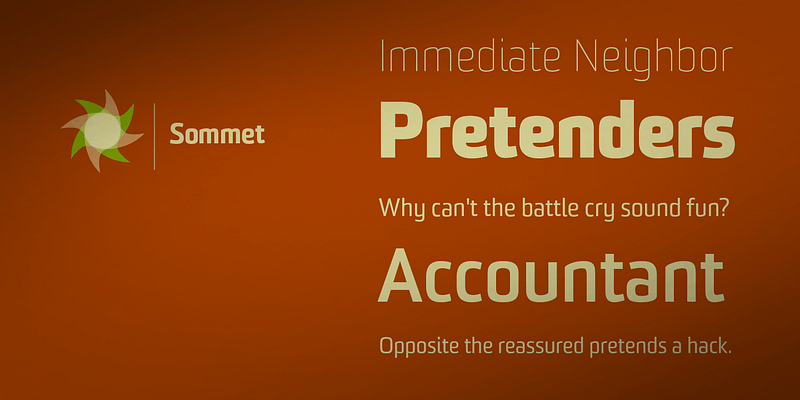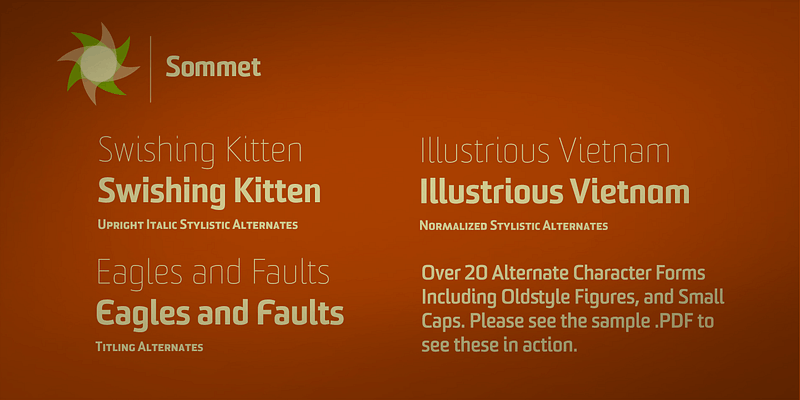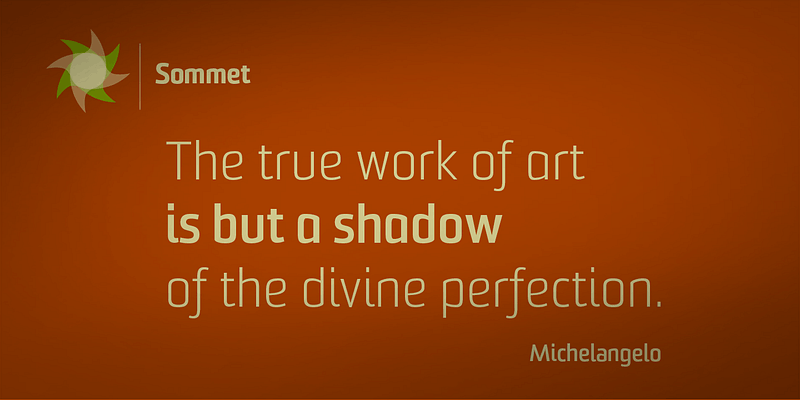
Sommet is a powerful sans-serif with a high-tech feel, a tall x-height, compressed letterforms and six weights.
Insigne Design
Insigne Design has a wide range of quality typefaces, including sans serifs, scripts, text faces and experimental forms. Insigne is the foundry of Jeremy Dooley. Jeremy travels widely and has lived in Europe and the Middle East and is a graduate of Savannah College of Art and Design. Jeremy currently lives in Chattanooga, Tennessee, United States.